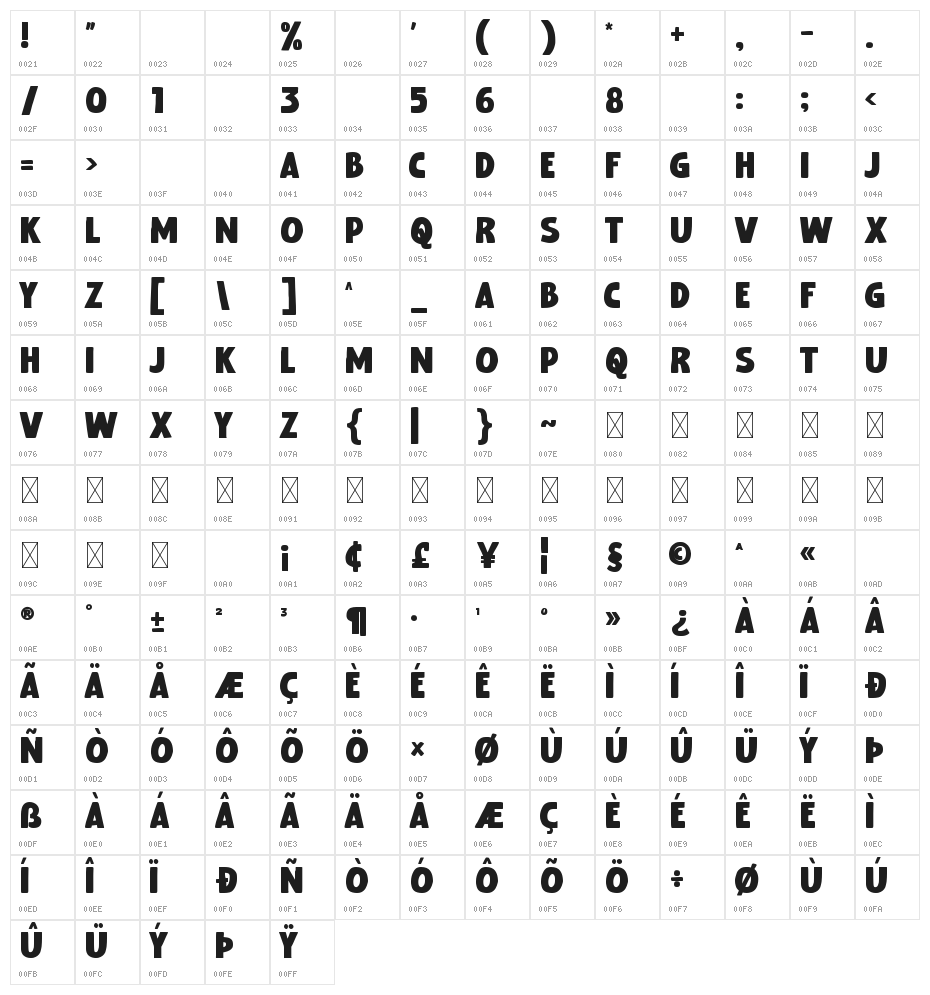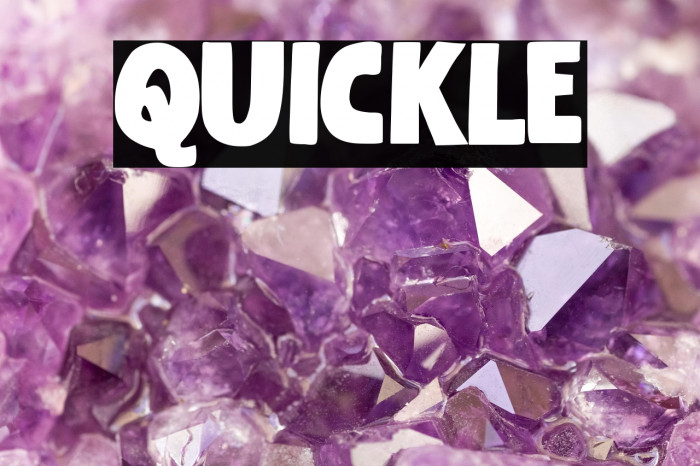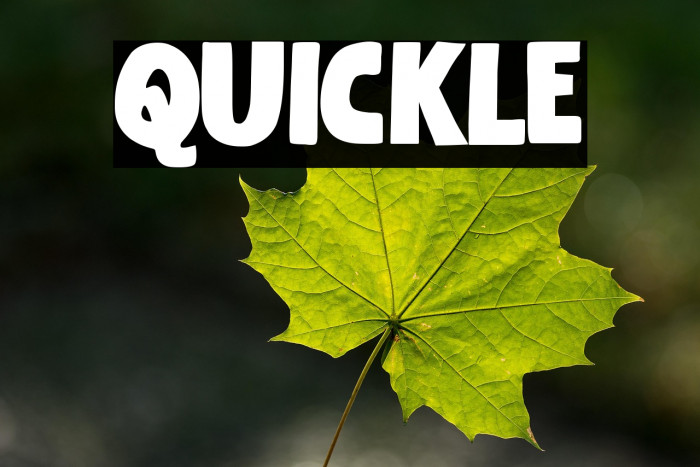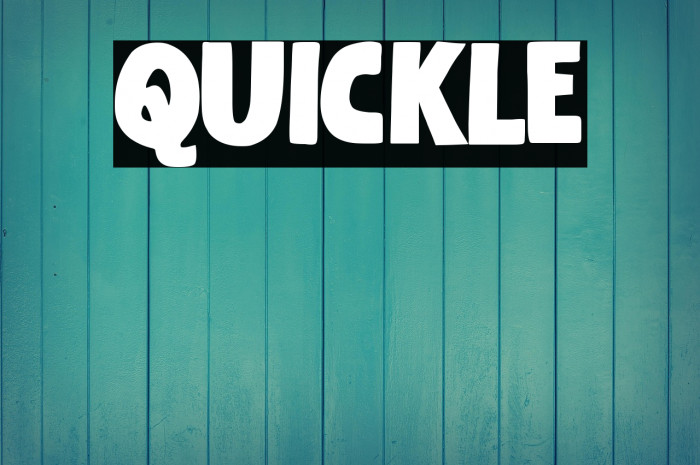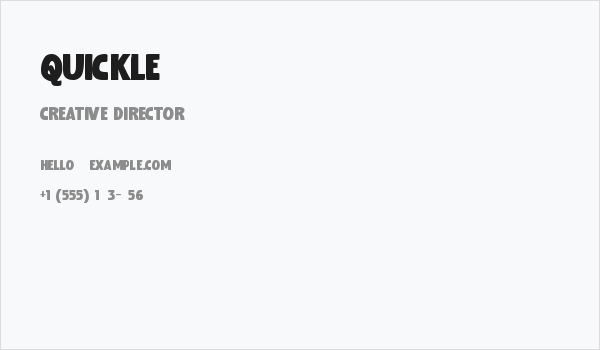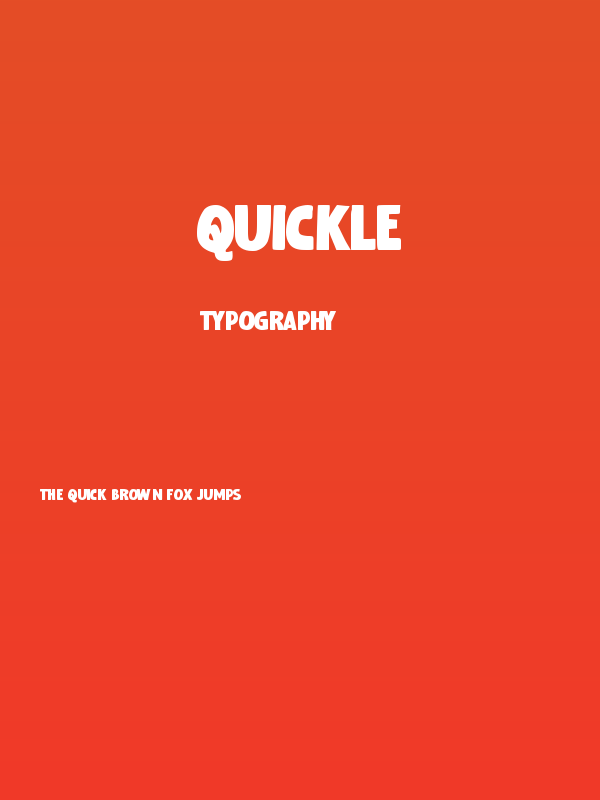
Quickle Font
Quickle Description
This font features bold, playful characters with a slightly irregular and hand-drawn appearance. The letters are thick and rounded, giving them a friendly and approachable look. The uppercase and lowercase letters maintain a consistent style, with a slight variance in stroke width that adds to the casual feel. Numbers and special characters are designed to match the overall aesthetic, ensuring a cohesive look across all text elements. The font's boldness makes it stand out, while its whimsical style adds a touch of fun and creativity.
| Overall Style | Playful, Whimsical |
| Use Case | Headlines, Posters, Branding |
| Proposed Projects | Ideal for children's books, playful branding, posters, and creative projects that require a fun and engaging typeface. |